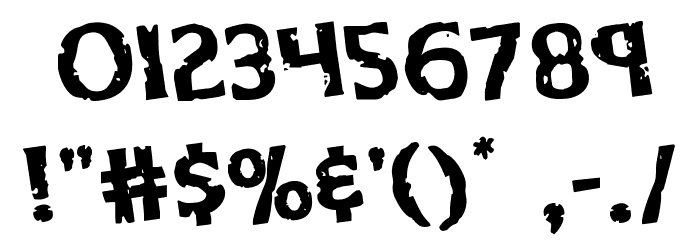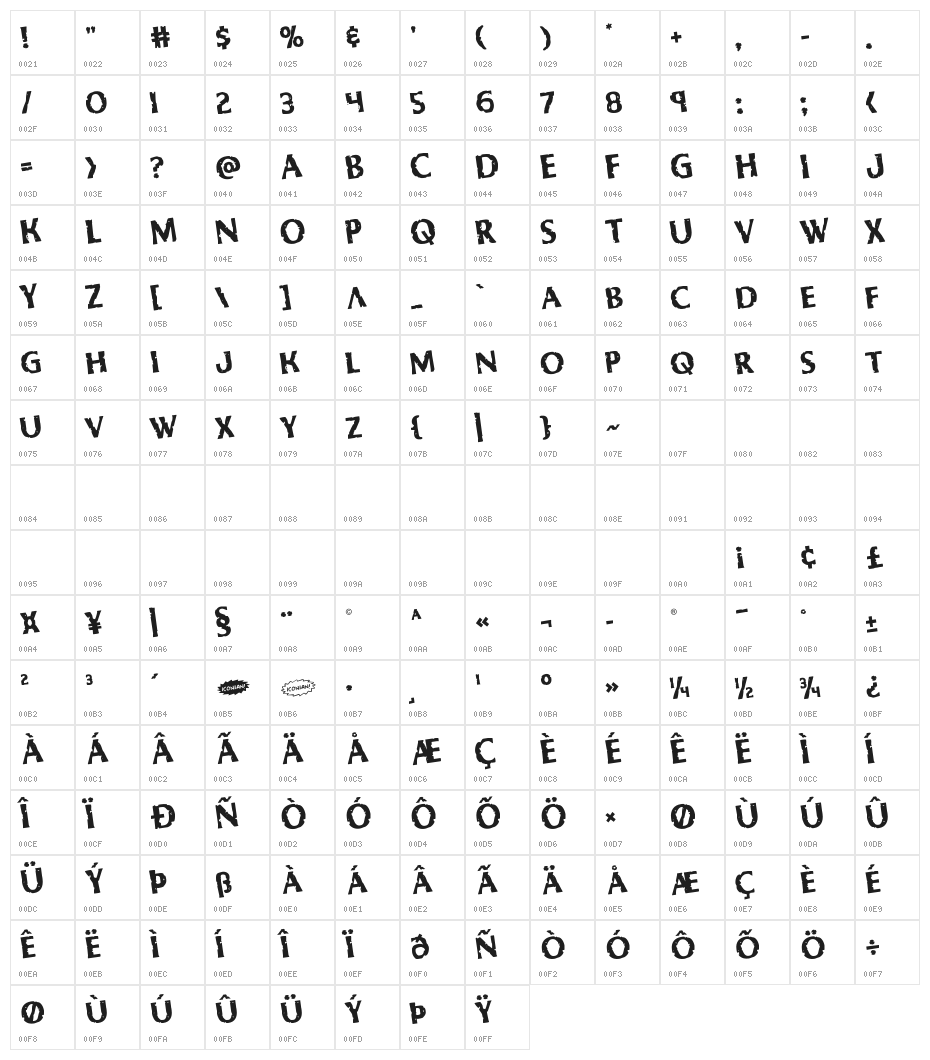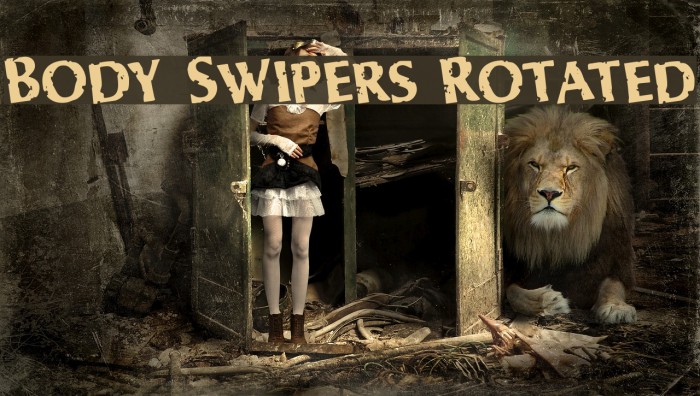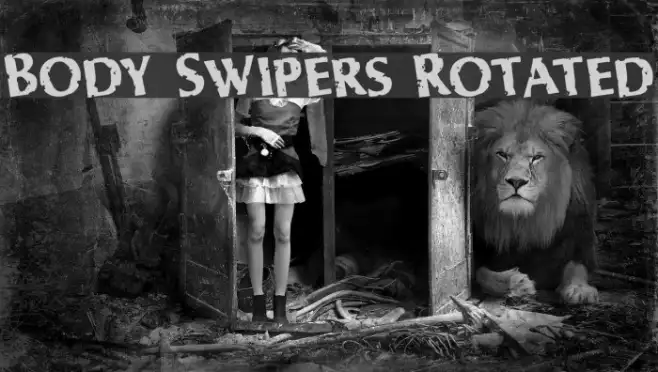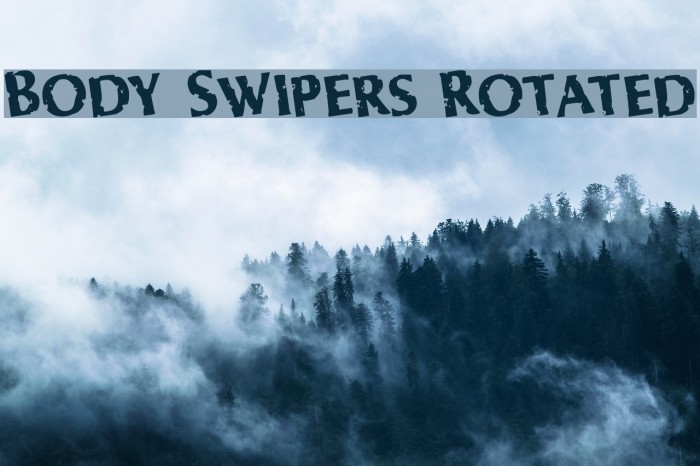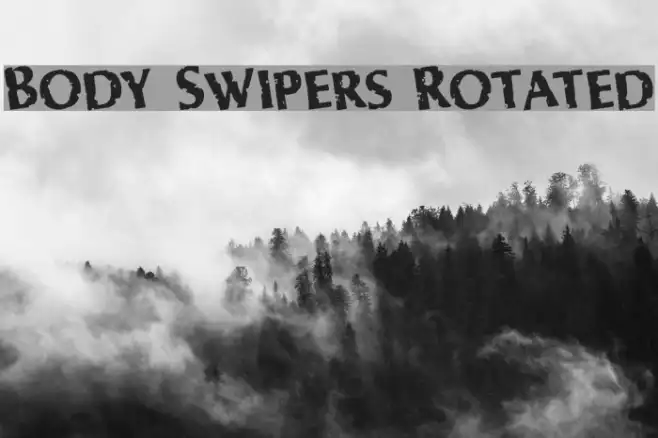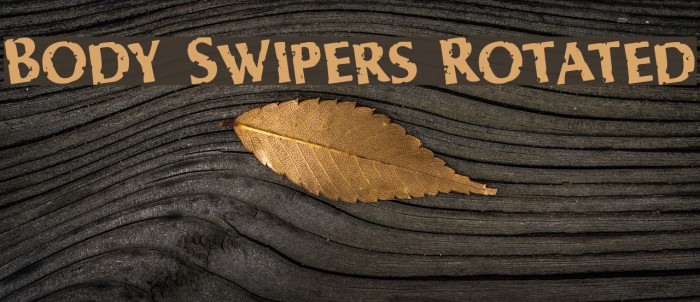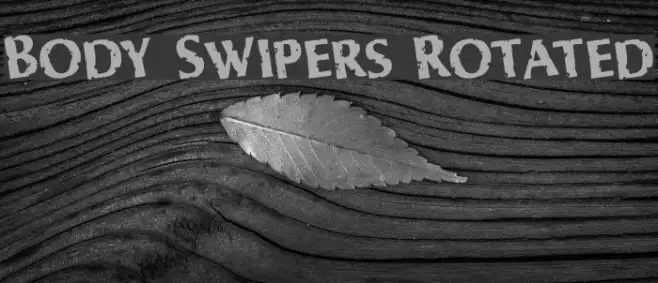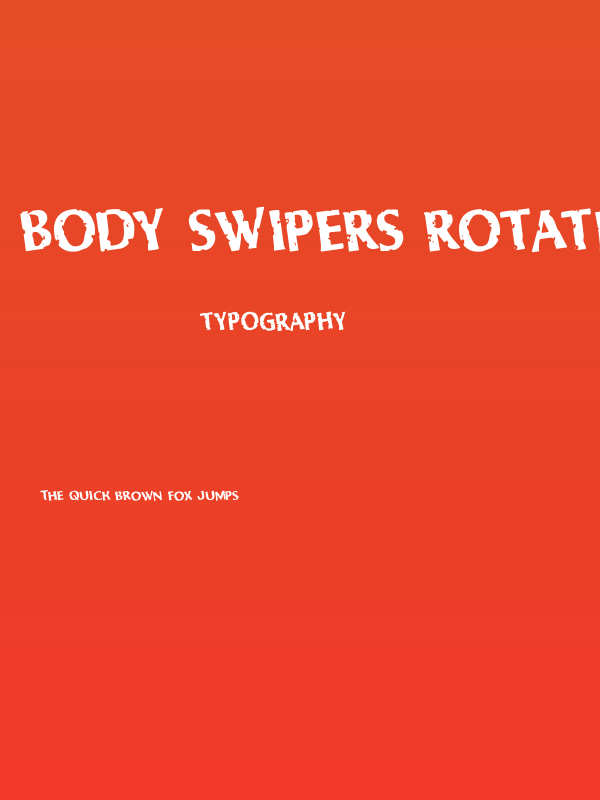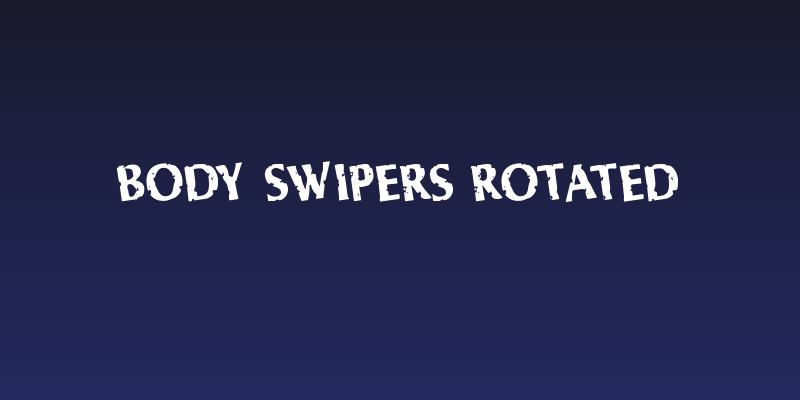
Body Swipers Rotated Font
Body Swipers Rotated Description
This font features a bold and distressed style, with each character appearing as if it has been weathered or worn over time. The edges are rough and irregular, giving it a rugged and dynamic appearance. The uppercase and lowercase letters maintain a consistent height, while the numbers and special characters follow the same distressed theme. This font is ideal for projects that require a grunge or urban aesthetic, adding a sense of edginess and character to any design.
| Overall Style | Grunge, Urban |
| Proposed Projects | Ideal for posters, album covers, streetwear branding, and any design needing a grunge or urban vibe. |